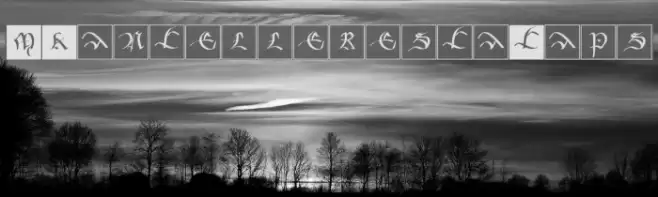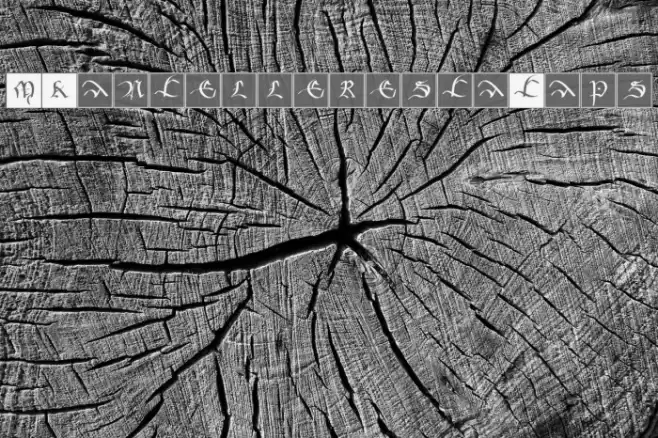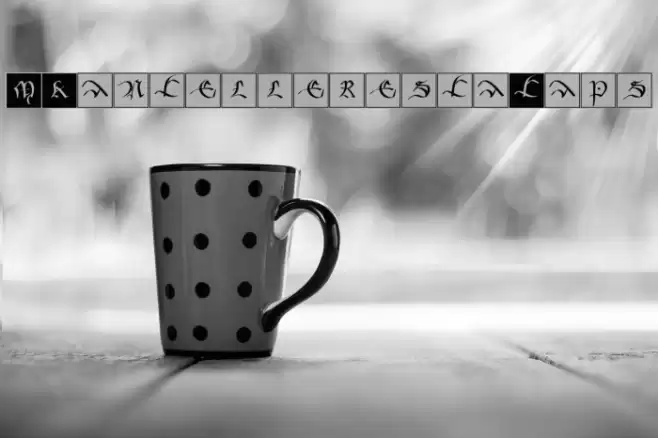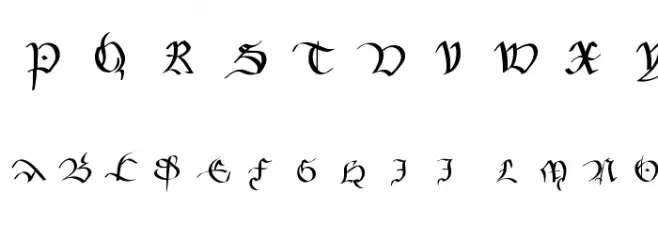
MKancellerescaCaps Font
MKancellerescaCaps Description
This font exhibits a classic and elegant style reminiscent of traditional calligraphy. The characters are intricately designed with flourishes and sharp, angular strokes that give it a sophisticated and formal appearance. The uppercase letters are particularly ornate, featuring elaborate swashes and curves that enhance their decorative appeal. The lowercase letters maintain a consistent style, with a slightly more subdued design that complements the uppercase set. The numerals and special characters are crafted with the same attention to detail, ensuring a cohesive look across all glyphs. This font is ideal for projects that require a touch of elegance and historical charm.
An elegant, calligraphic font with ornate, angular strokes and decorative flourishes from Uncategorized fonts.
- Contrast: High
- Overall Style: Classic